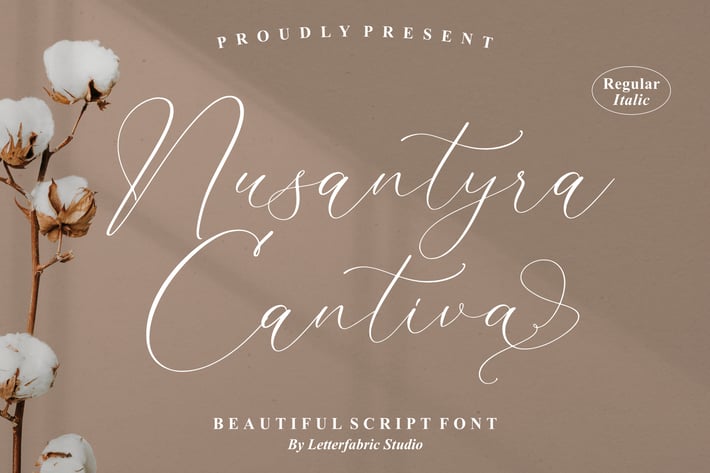
Nusantyra Cantiva Script Font
Nusantyra Cantiva is a delicate calligraphy script with long, flowing swashes and soft, graceful curves. Inspired by natural textures and romantic moments, it adds a refined handwritten touch to wedding stationery, feminine branding, and aesthetic social media visuals.
Elegant calligraphy script with extended decorative swashes
Thin, flowing letterforms ideal for names, logos, and headlines
Romantic handwritten feel with a luxurious, airy character
Perfect for both premium print pieces and digital designs
Wedding invitations & bridal stationery
Romantic quotes & greeting cards
Beauty, fashion, and lifestyle branding
Social media posts & soft moodboards
Packaging, labels, and boutique identity
Editorial titles, posters, and event materials
Delicate calligraphy inspired by soft neutrals and romantic, nature-led design.